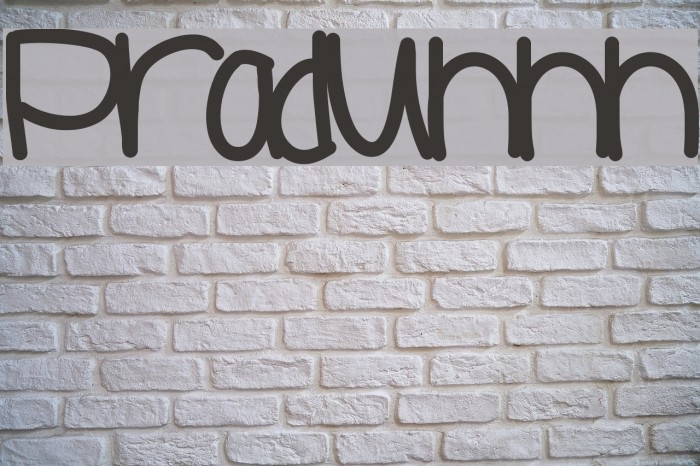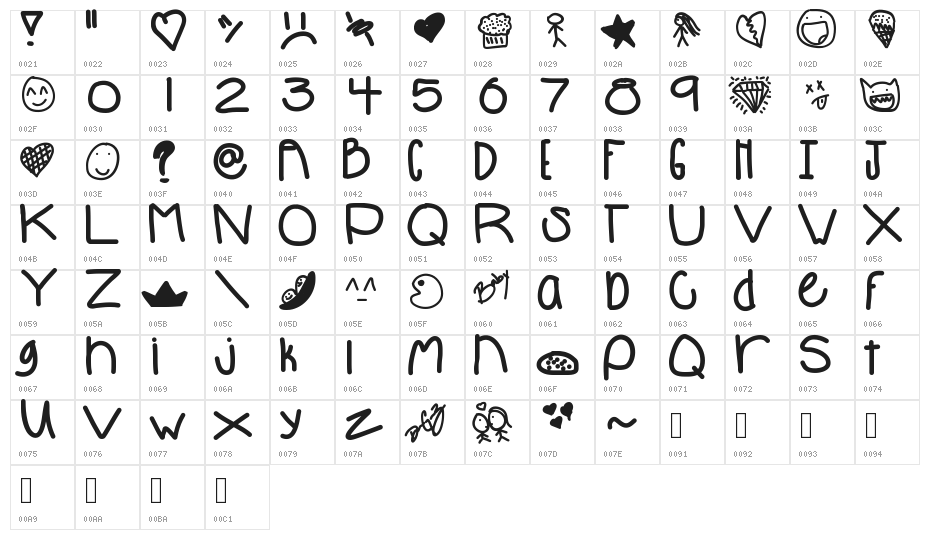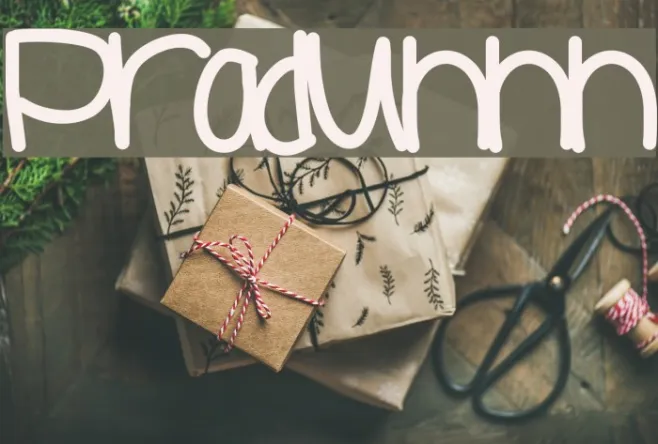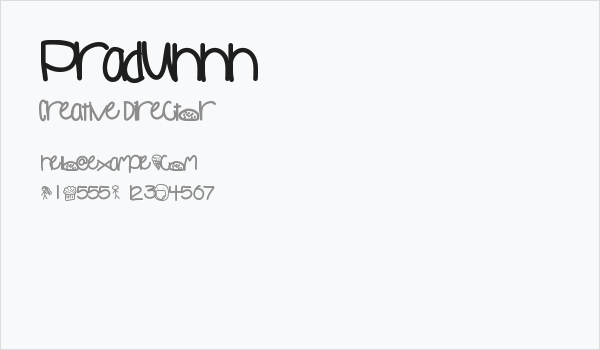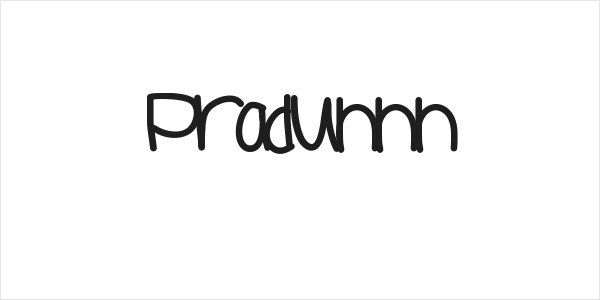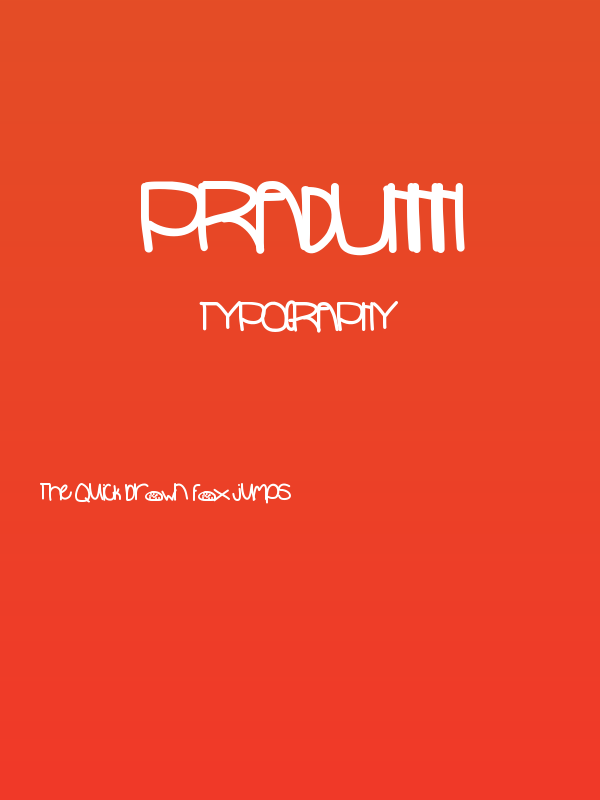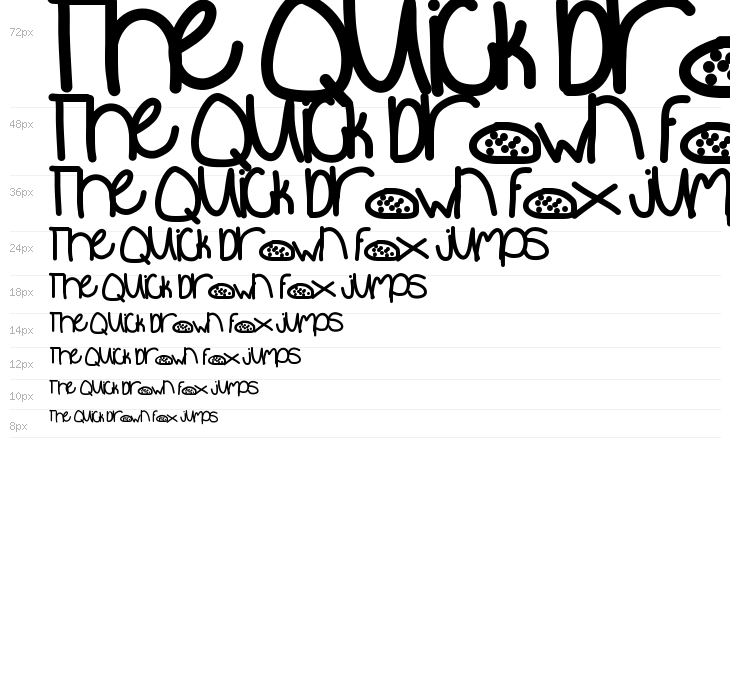
Praduhhh Font
This playful and whimsical font features a handwritten style with bold, rounded strokes. The characters are highly stylized, with a casual and informal appearance. Each letter has a unique, quirky design, adding a sense of fun and creativity. The font includes a full set of uppercase and lowercase letters, numbers, and a variety of special characters and symbols, such as hearts, stars, and smiley faces. The overall look is youthful and energetic, making it ideal for projects that require a touch of personality and flair.
A playful, handwritten font with bold, rounded strokes and quirky characters.
- Proposed Projects: Ideal for children's books, greeting cards, playful branding, and social media graphics.
- Overall Style: Playful